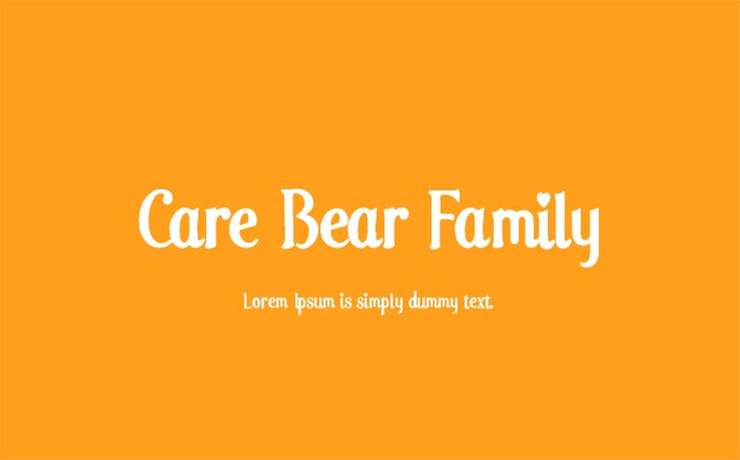
Care Bear Family Font is a simple and fancy various typeface. Its simplicity is a great feature to showcase that will give an edge to your layouts perfect for headlines.
This font offers simplicity at its best with its pretty distinctive details. This fancy font is definitely the best font to express your greetings cards, posters, playful titles, and more.
All structure looks as if the designer has drawn them by hand and added a fancy layout to the structure. It has the feature of standard height with a regular structure.
The width and space between the letters are approximately equal to the standard size. And the best part is that it can be used with other fonts. This option is also the best part of it.
When you look at its structure, you find that its structure comes with a slightly wrong baseline, which adds extra creativity to all typefaces.
It has featured a beautiful stylish texture so defiantly it can helpful for creating unqiue designs and stylish designs. Like, book covers, posters, unique emblems, stylish cards, titles, printing on fabrics, and wherever you want.
This font, which comes in only a single style including regular. This single style also supports 222 characters and 207 unique glyphs.